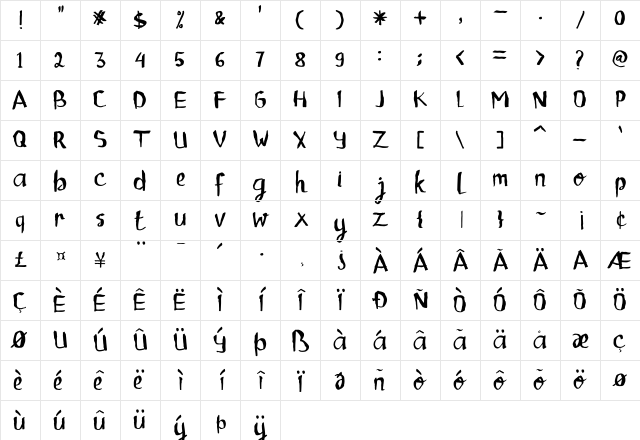
Childrenalien Regular Free Font
Childrenalien Regular
Foundry: creativemedialab
Designer: Kadek Adi Mahardika
Complete Childrenalien Regular glyph index. Displaying only characters natively supported by Childrenalien Regular font.
Design Context for Childrenalien
Childrenalien has an approachable, lighthearted character - its loose, expressive forms are well-suited to children's content, casual branding, and fun-first design.
Font Pairing: Pairs well with a rounded or humanist sans for body copy, maintaining the friendly tone without relying on Childrenalien to carry extended reading.
Pro Tip: Use Childrenalien at larger display sizes where its expressive character can land. Pair with a clean, simple sans for body copy to maintain readability.